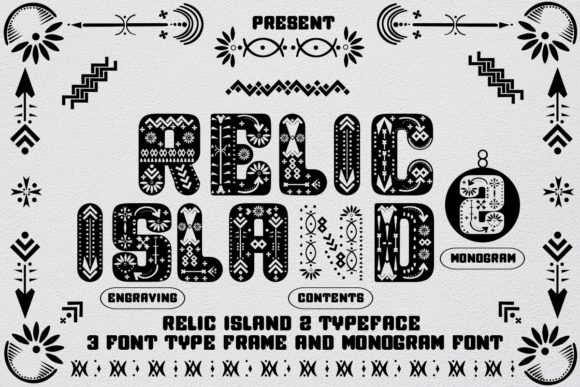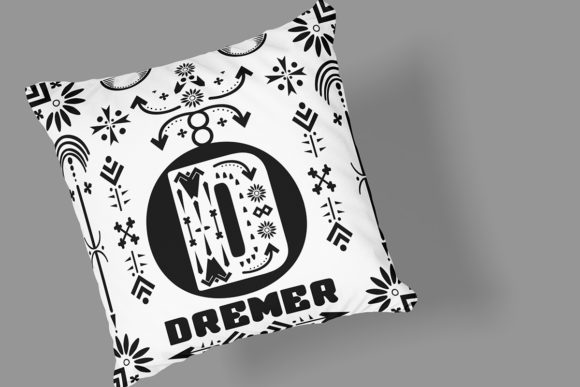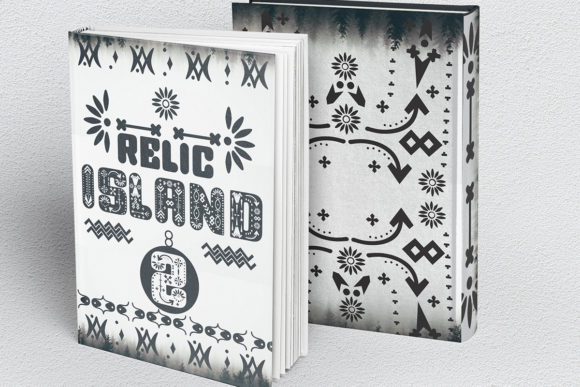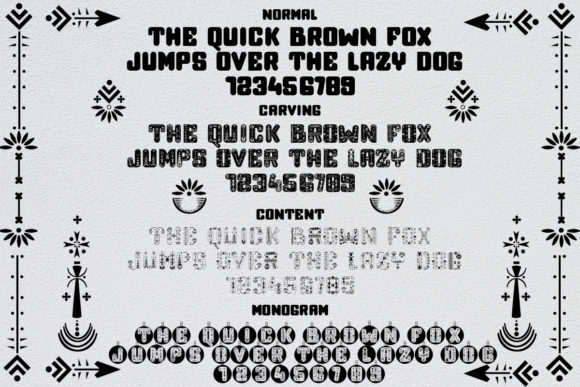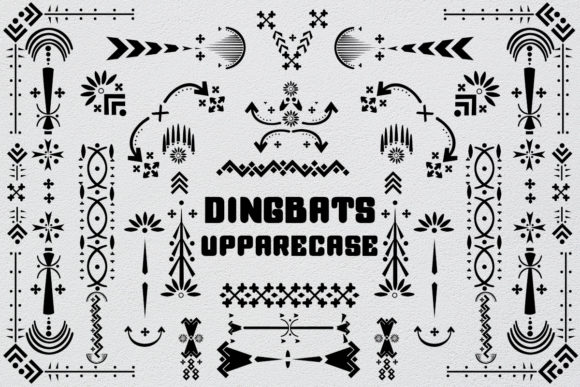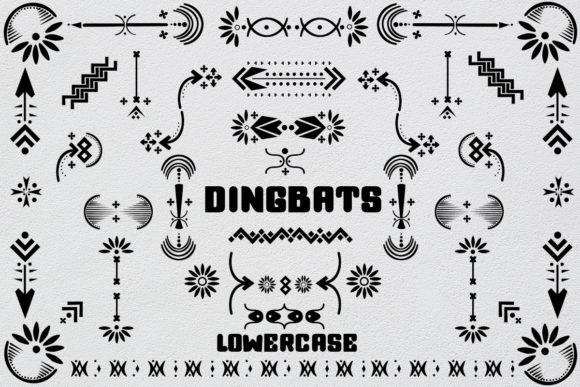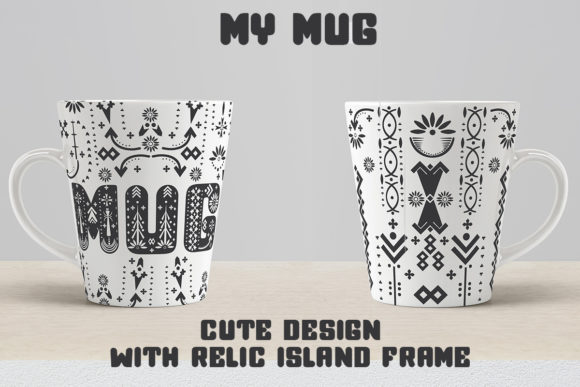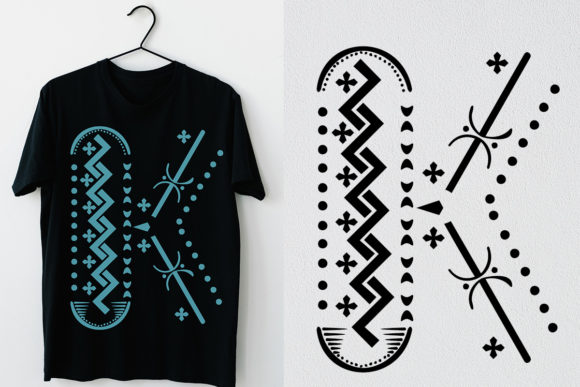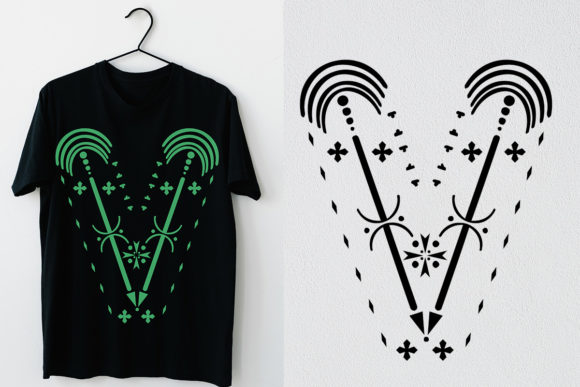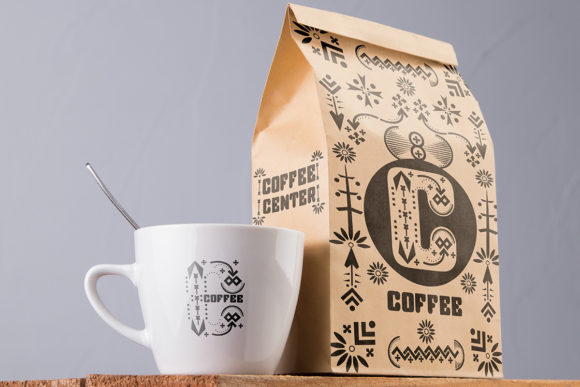
Relic Island 2 is a fun and interesting decorative font. It is trendy, hippy and adept to a wide variety of designs. Add this font to your favorite creative ideas and notice how it makes them come alive!